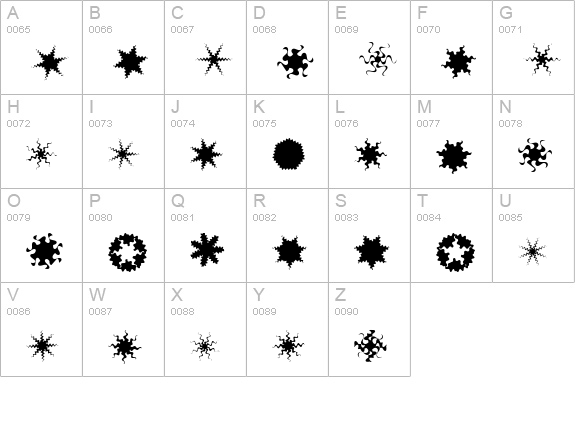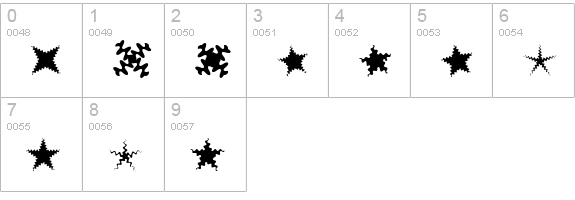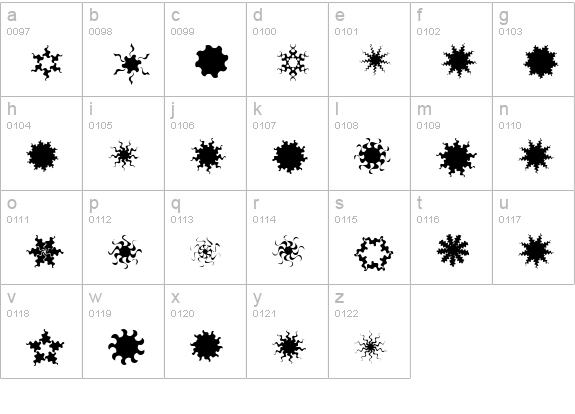
XGalaxyOne Font Details
XGalaxyOne is a stunning display font that will take your designs to the next level with its futuristic and space-inspired aesthetic. This font features sharp edges and sleek lines that give it a modern and sci-fi feel. Perfect for projects that require a touch of otherworldly charm, XGalaxyOne is sure to captivate your audience and make a lasting impression. The best part? XGalaxyOne is completely free to download at FontsMarket.com! Whether you're working on a branding project, poster design, or any other creative endeavor, this font will add a unique and eye-catching element to your work. Don't miss out on the opportunity to elevate your designs with the free XGalaxyOne font today.